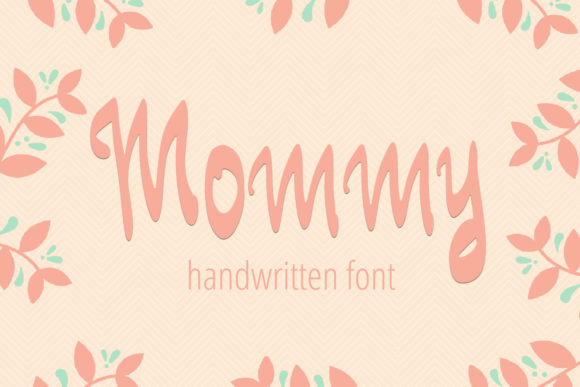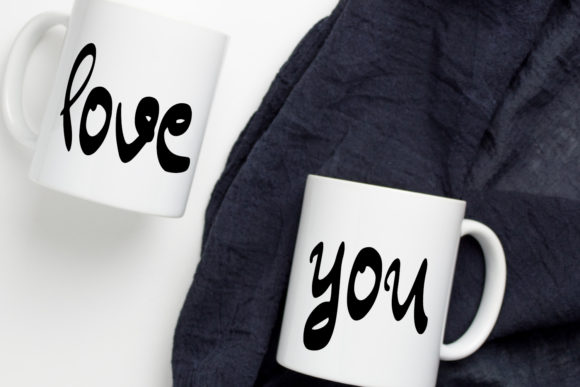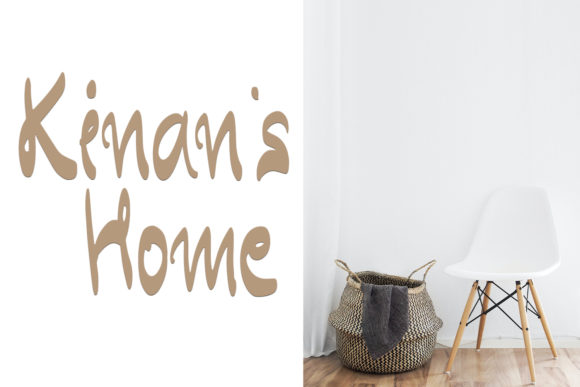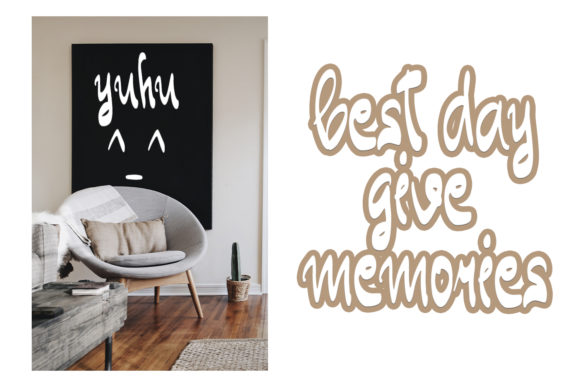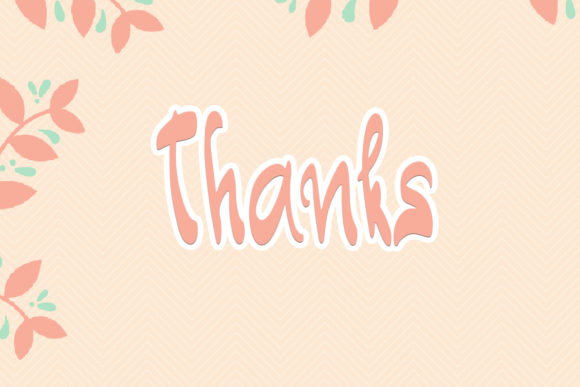
Mommy Font
About Mommy Font
Mommy is a sweet and lovely handwritten font. Just like its title, this font is absolutely wonderful in any possible context!